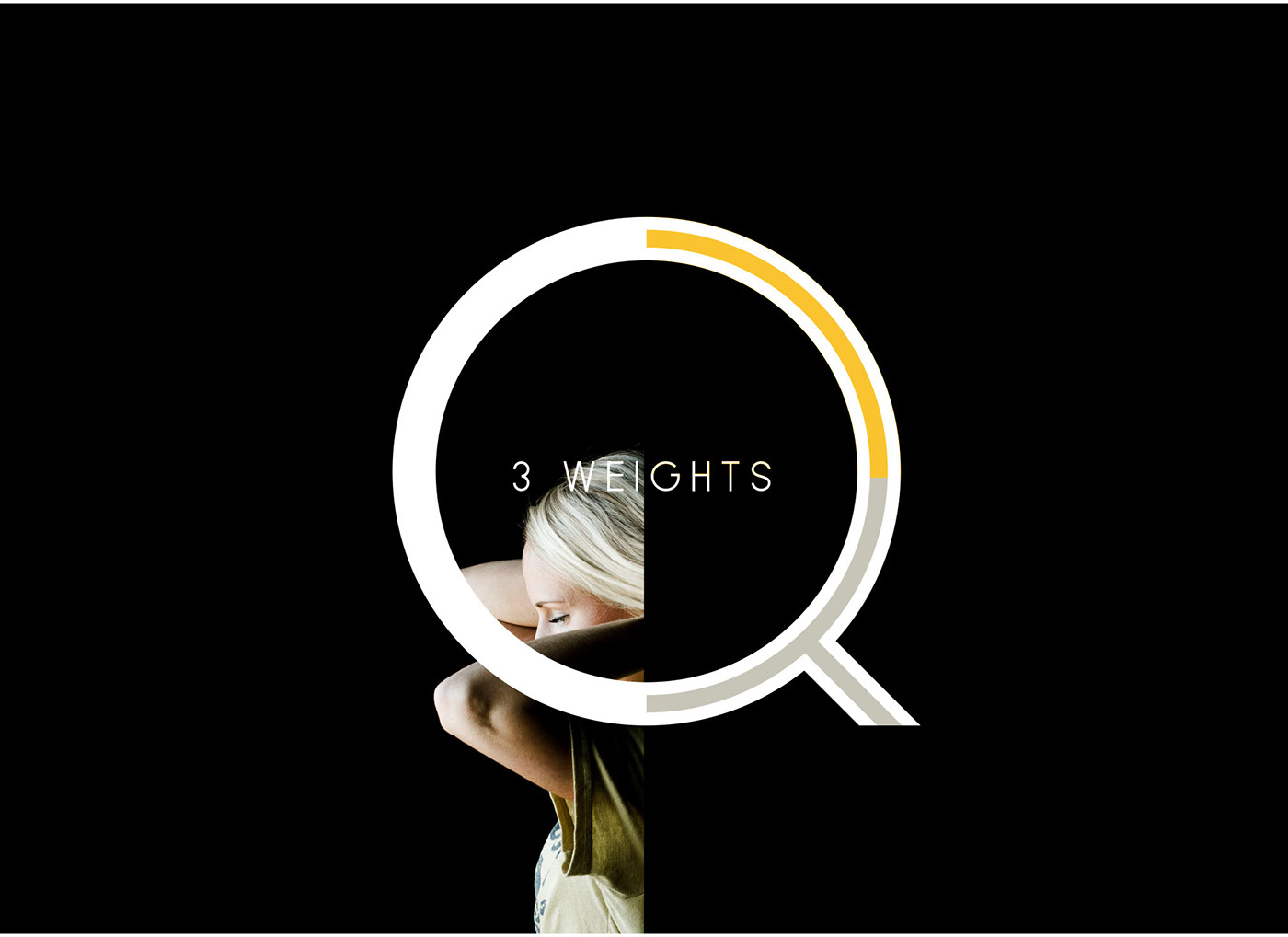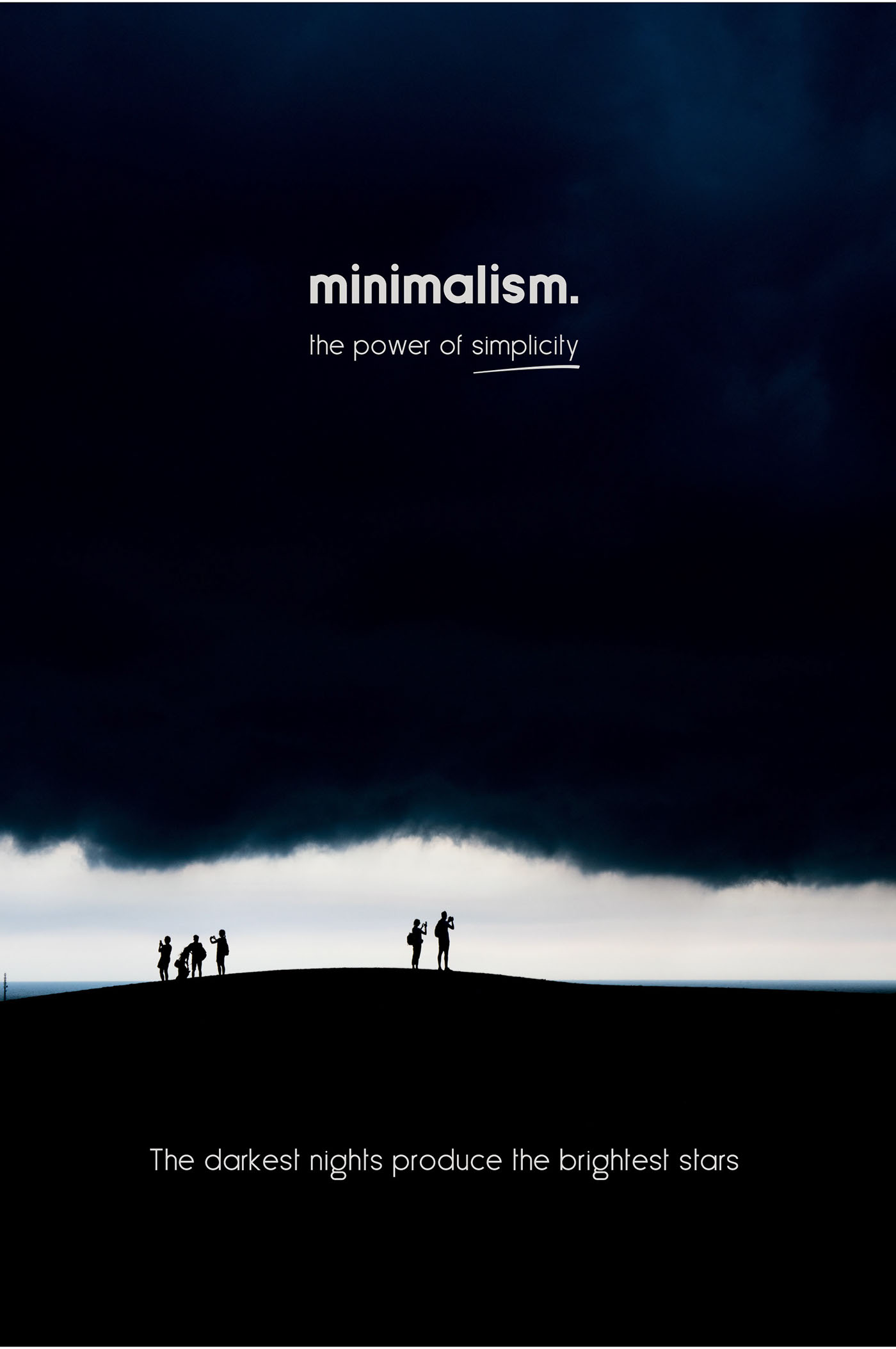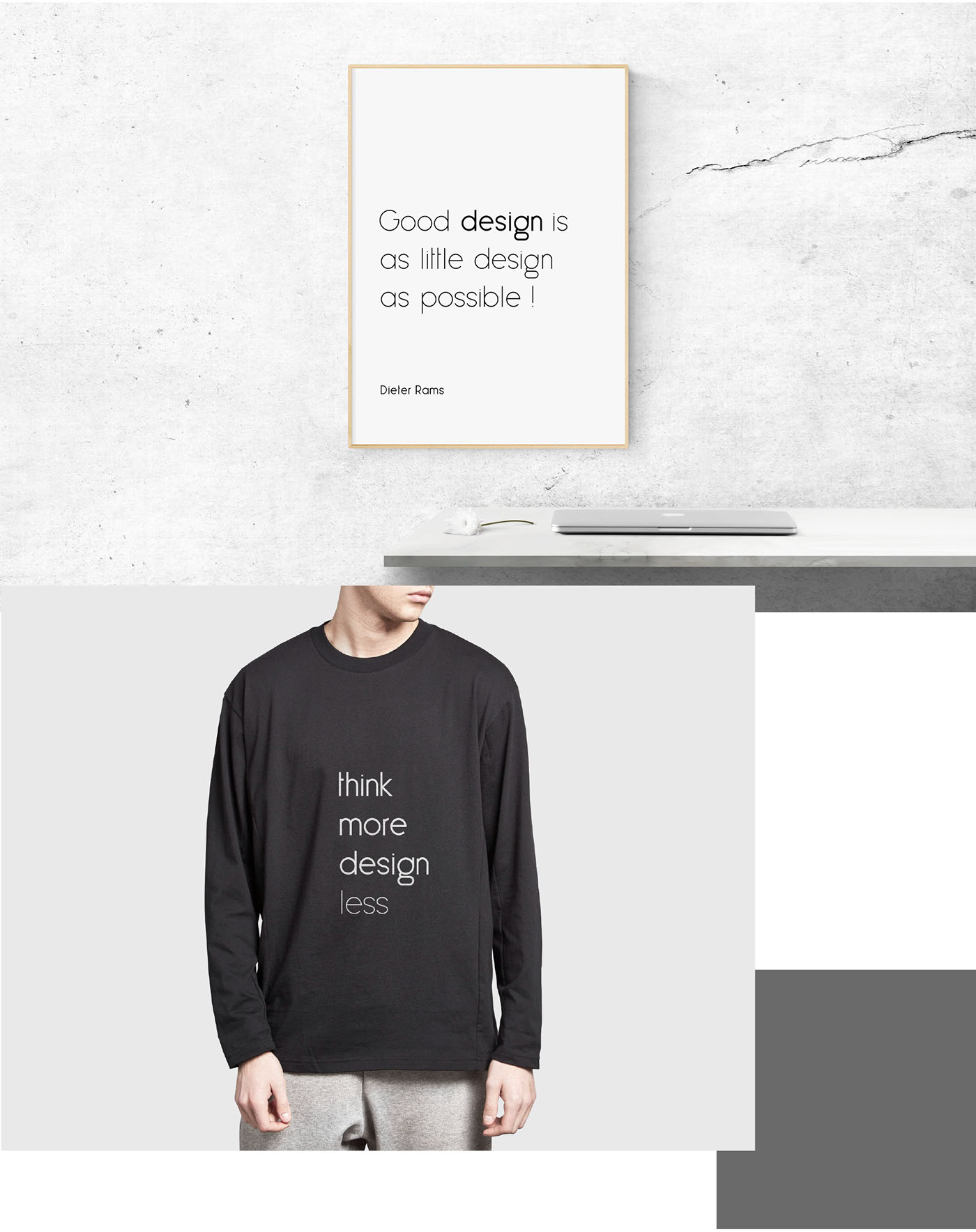
Less Sans Typeface
Less sans is a very minimal typeface crafted with love by designers for designers. The font is constructed around a geometric well studied grid. It consists of 3 weights; regular, light & bold. All uppercase, lowercase, numerals, most symbols & glyphs and included.